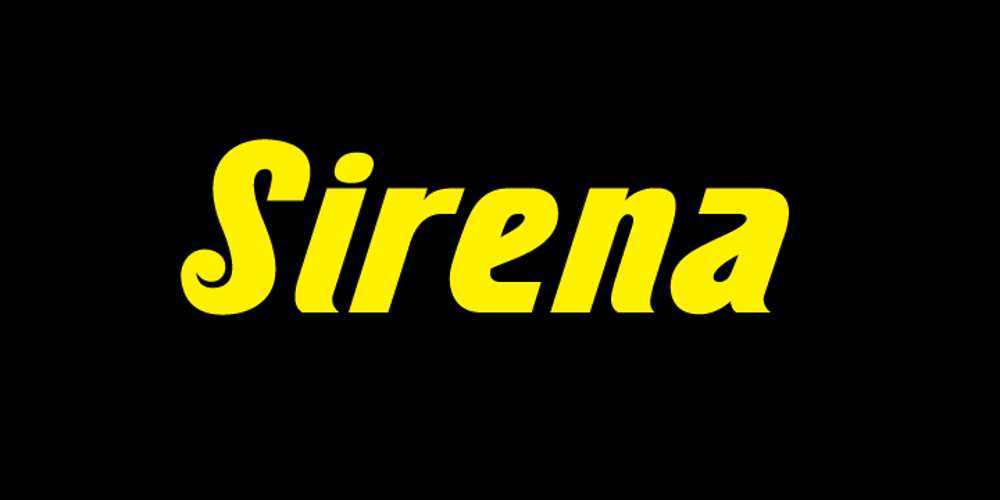
Sirena
Sirena font
Sirena Font Family was designed by Richard D. Granados and published by Stereo Type Haus. Sirena contains 3 styles and family package options. Inspired by hand-painted signage found in ”Little Haiti” Miami, Florida. Sirena’s quirky curls, dynamic slant, and organic nuances capture the essence of Latino street vernacular.